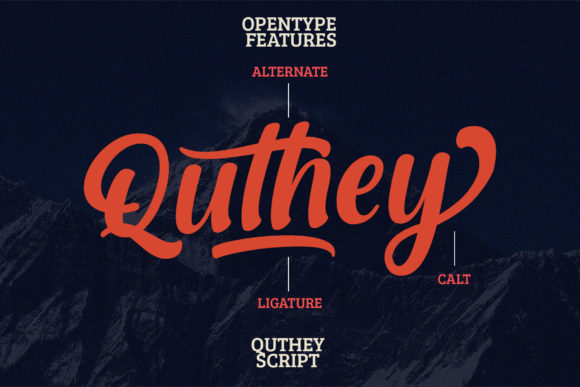
Feast your eyes on Quthey Font, the epitome of elegance and retro charm, meticulously designed to elevate your headlines and logotype projects to new heights of sophistication. This captivating handwritten font exudes strength, confidence, and dynamism, injecting a timeless allure into your creative endeavors.
Dive into the depths of Quthey's enchanting glyphs and swashes, effortlessly accessible via PUA encoding, and unlock a world of typographic possibilities. Unleash your imagination and craft logos that radiate with vintage charisma, headlines that command attention with their bold presence, and designs that evoke a sense of nostalgia and intrigue.
With Quthey Font as your creative ally, you'll leave an indelible mark on your audience, evoking emotions and igniting connections with every visual masterpiece you create. Its versatility knows no bounds, seamlessly adapting to a myriad of projects, from branding and marketing materials to social media graphics and web design.
Embrace the magic of Quthey Font and elevate your designs to new heights of brilliance. Let its timeless beauty and captivating aura captivate your audience, leaving them spellbound by the sheer elegance and sophistication of your creations.